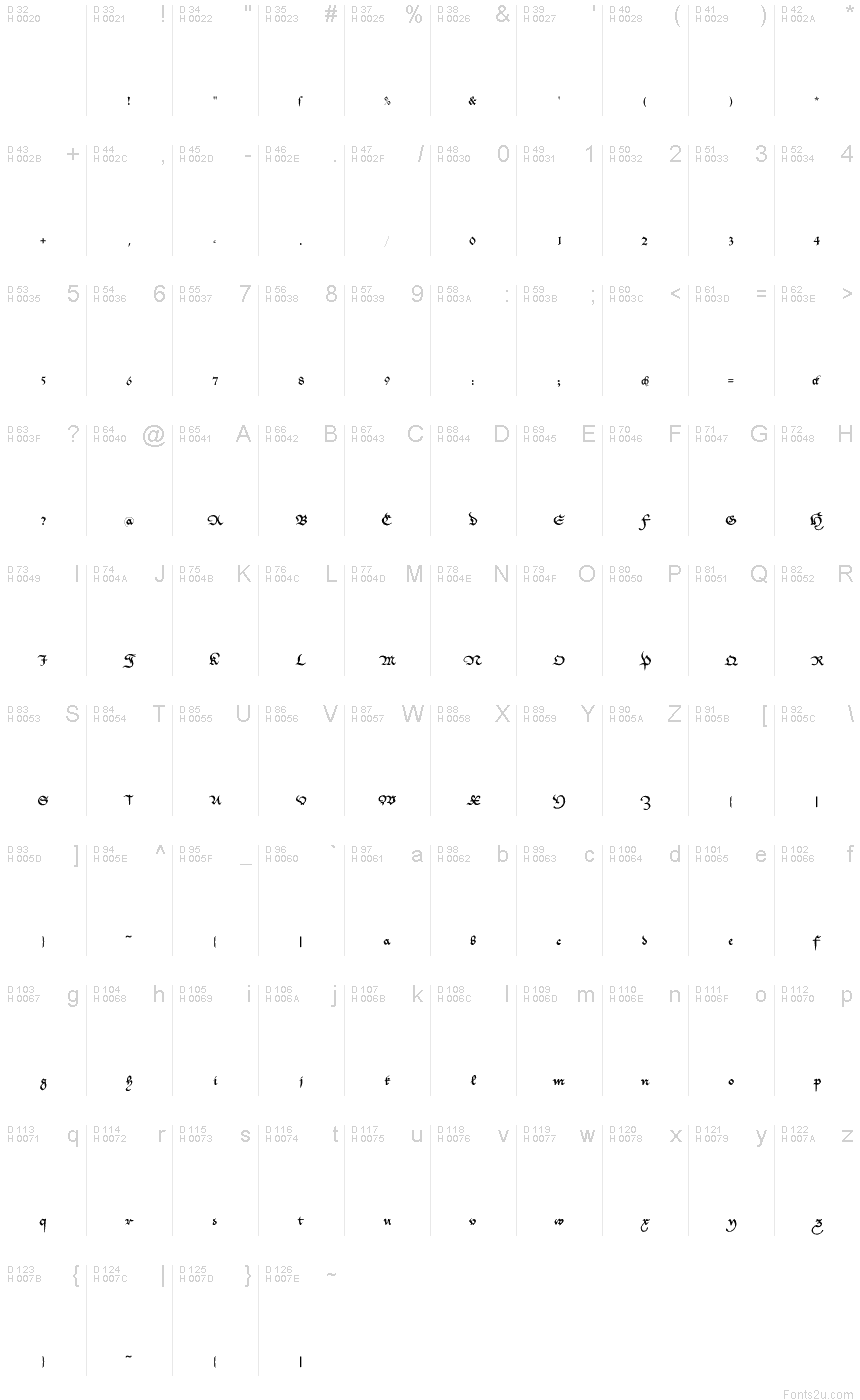
CantzleyAD1600
Cantzley AD 1600 font by Manfred Klein is a free medieval gothic script typeface that feels like it was pulled straight from an ink‑blotted parchment. Its letters sweep and curl with quill-like strokes, mixing sharp hooks with soft loops so words look ceremonial, almost whispered. The rhythm is tight and slightly irregular, giving designs a convincingly old, hand‑written texture rather than a sterile imitation of history.
Using Cantzley AD 1600, you can give real gravitas to fantasy book covers, RPG titles, renaissance fair posters, themed restaurant signage, craft beer labels, wedding invitations with a historical twist, and ornate certificates. This free font shines when set large, letting the dramatic curves and dense strokes breathe; pair it with a plain serif or sans for small supporting text so the gothic script stays readable and striking.